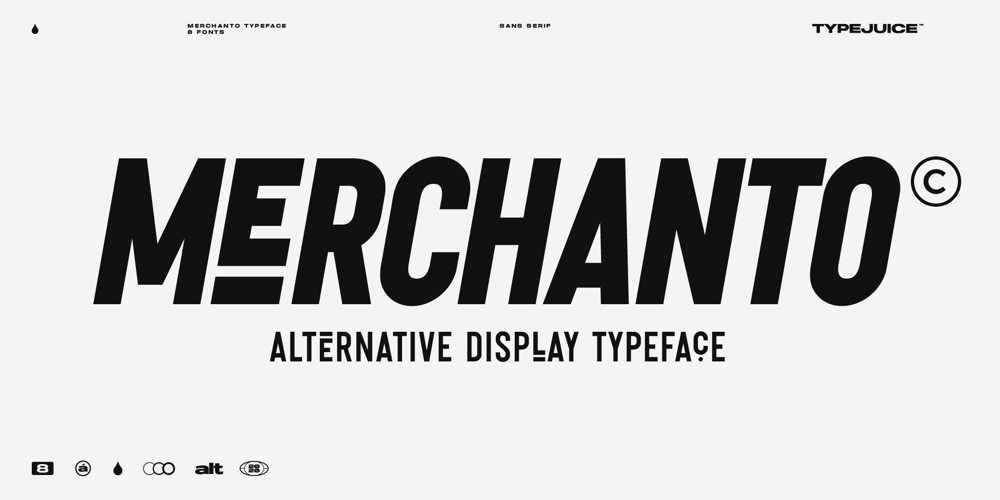
Merchanto
Merchanto font
Merchanto Font Family was designed by Matthew Messiha and published by Type Juice. Merchanto contains 8 styles and family package options. Merchanto is a condensed sans serif display typeface made up of 8 fonts in a variety of styles and weights. Included are over 500 stylized alternate glyphs for creative control and customization. 8 fonts total Over 500 Alternates Multilingual Over 2300+ glyphs